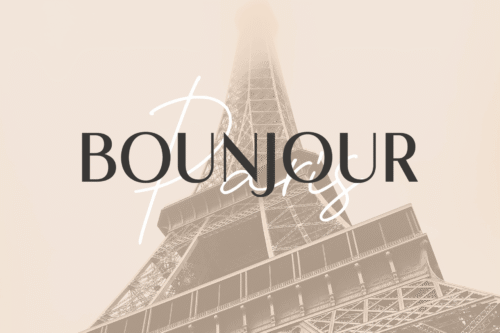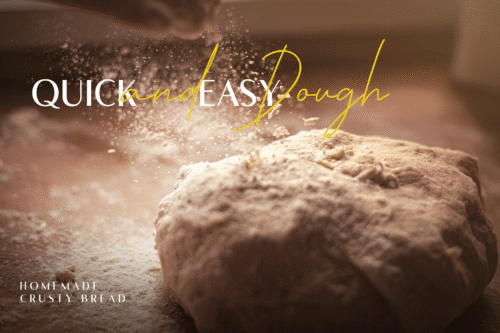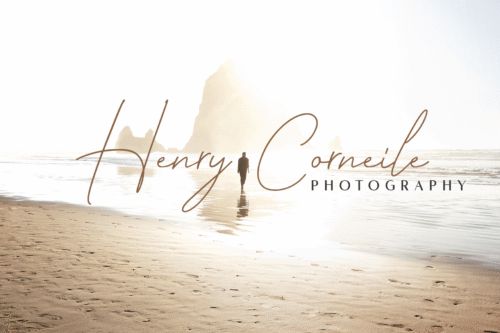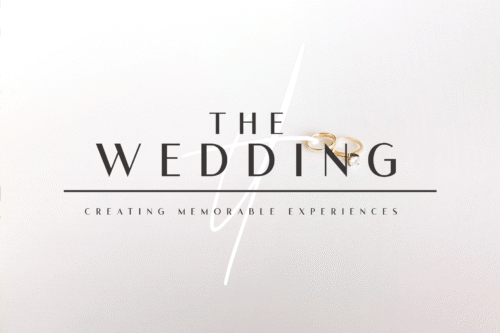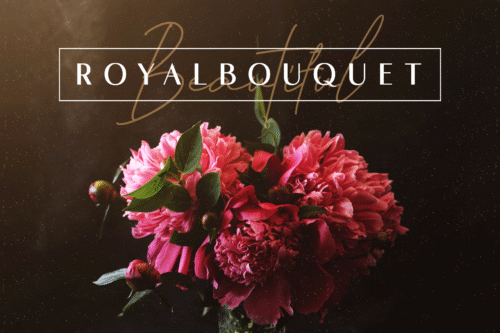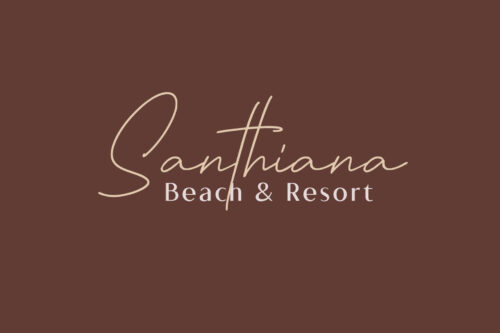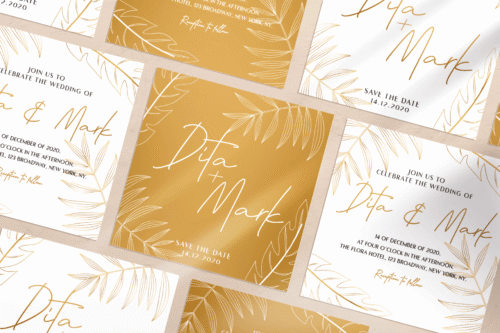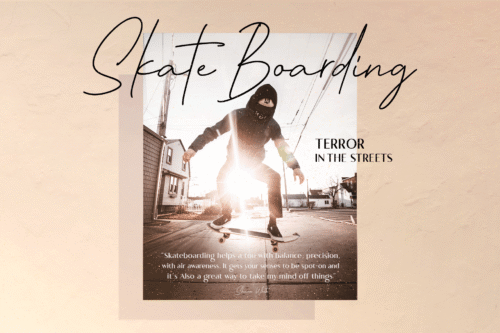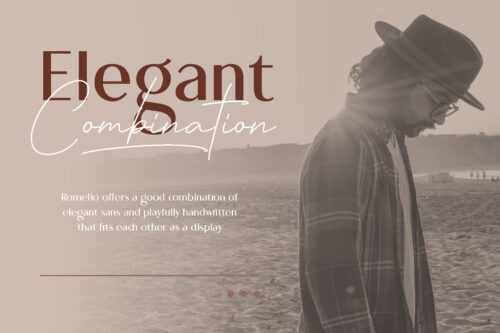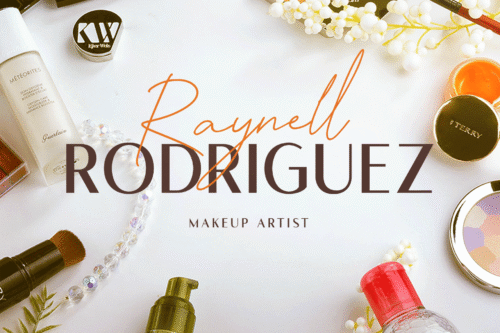
Beautify your design with Romelio Font Duo, a classic combination of minimalist sans serif and attractive handwritten. Inspired by modern fashion and traveling culture, Romelio offers an elegant font pair that ease you to maximize your design, also get clean and luxurious looks.
- Romelio Sans : The minimalist sans serif perfect for headline and shot body text. Equipped with lots of classy ligatures and alternates. The high contrast of letterform that suitable for minimalist design.
- Romelio Handwritten : A beautiful handwritten created by manual sketch, carefully traced, and keep the minimalist touch that allows you to use this one for the display. Complete with extra swashes to give you more various designs.